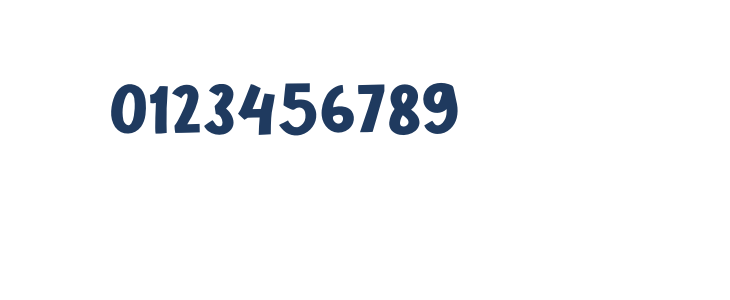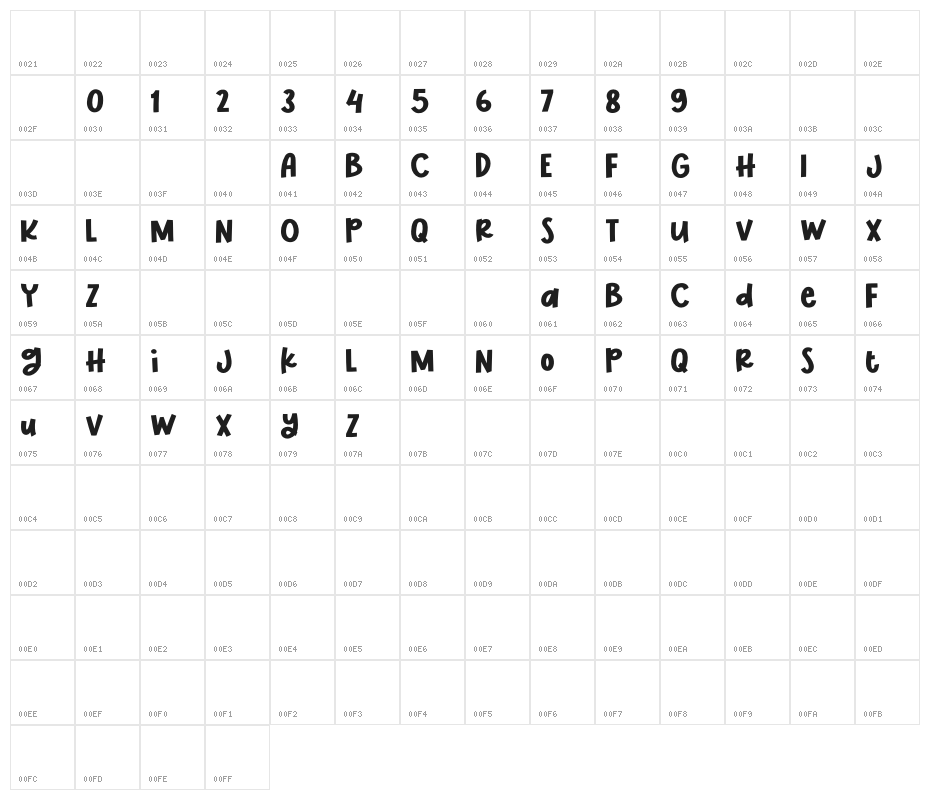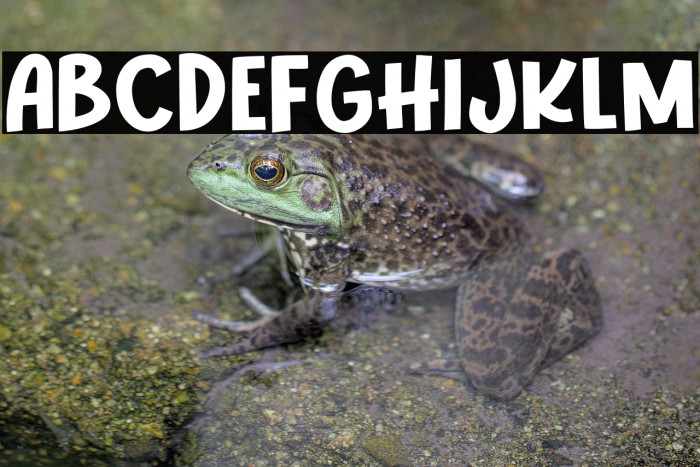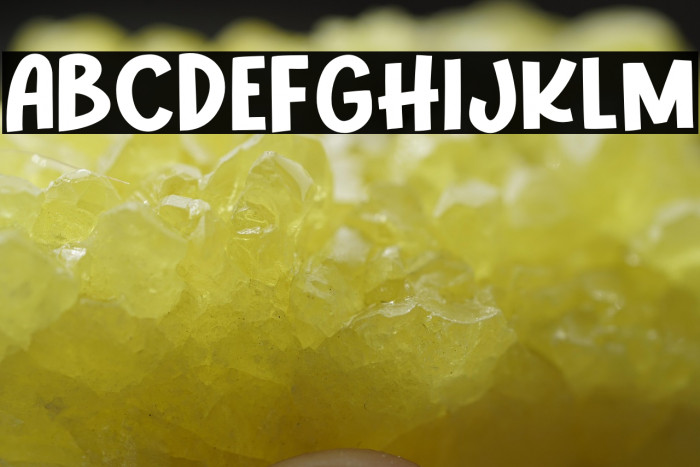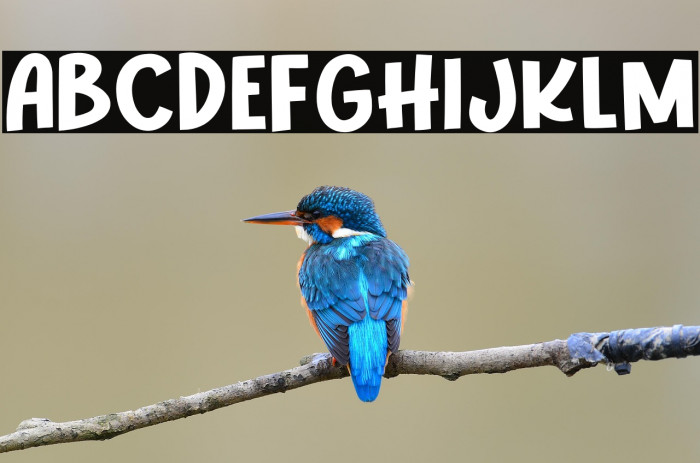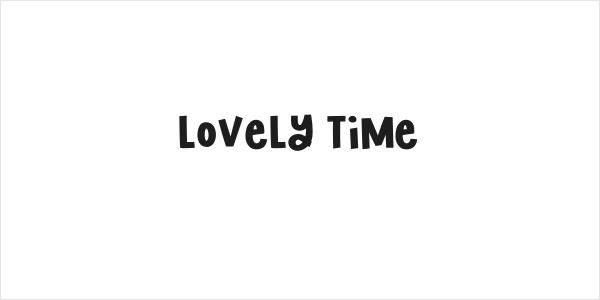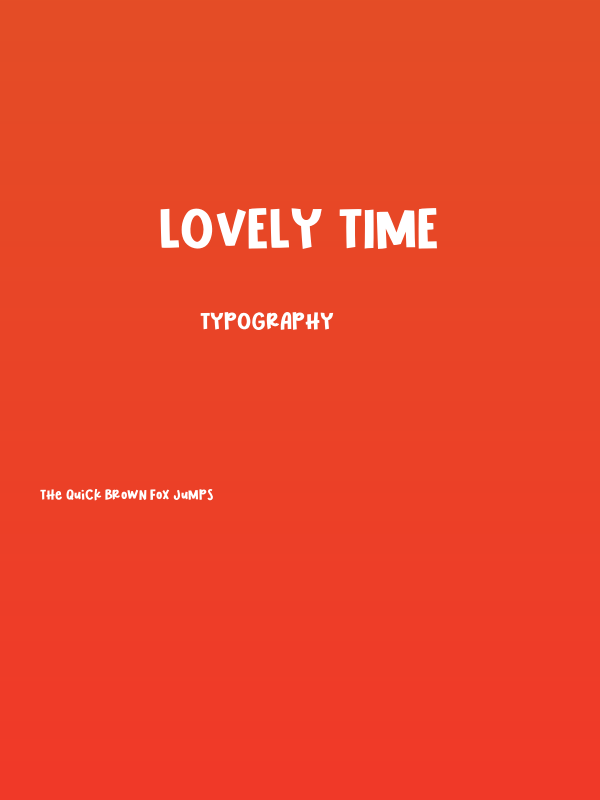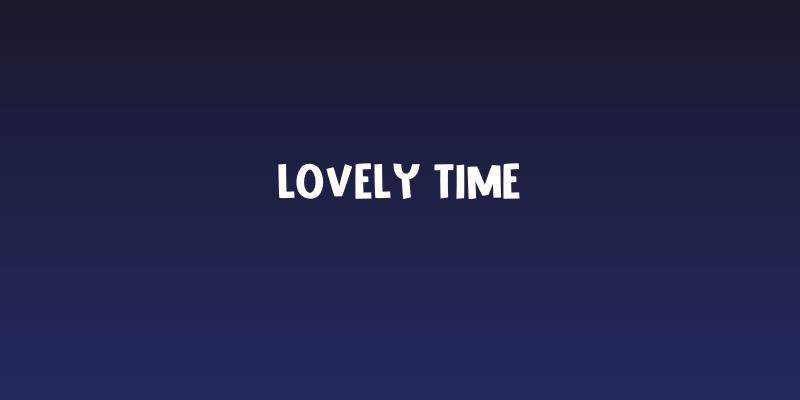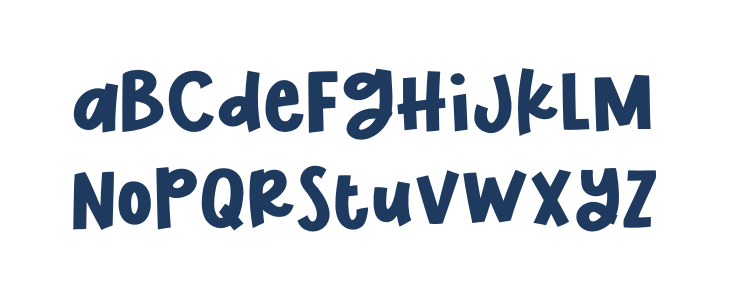
Lovely Time Font
Lovely Time Description
This playful and bold font features a whimsical style with a hand-drawn appearance. The characters are slightly irregular, adding a sense of fun and creativity. The uppercase letters are bold and rounded, while the lowercase letters maintain a consistent style with unique flourishes. The numbers are equally bold, ensuring readability. This font exudes a friendly and approachable vibe, making it perfect for projects that require a touch of personality and charm. The overall design is cohesive, with a consistent stroke width that enhances its playful nature.
Overall StylePlayful
Proposed ProjectsIdeal for children's books, playful branding, greeting cards, and creative posters.